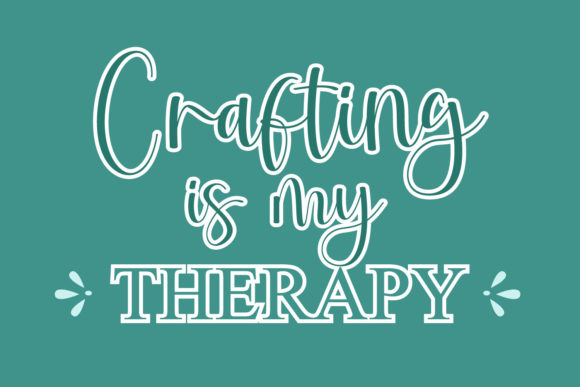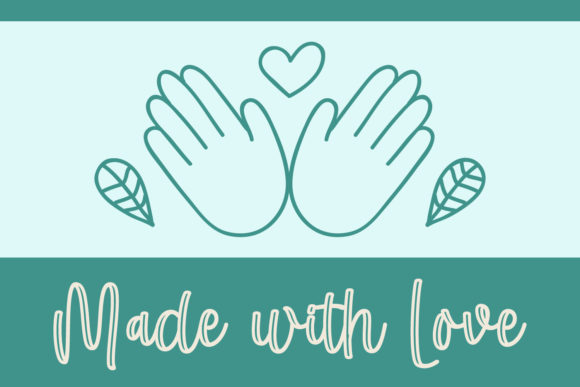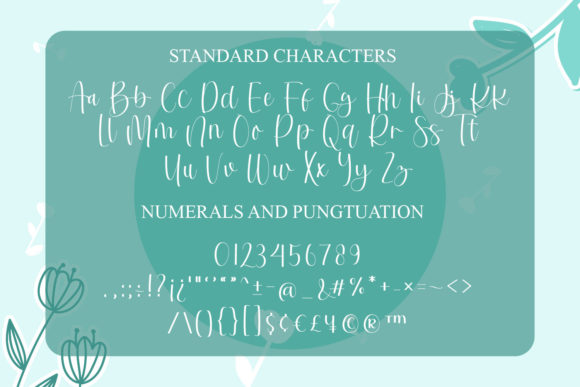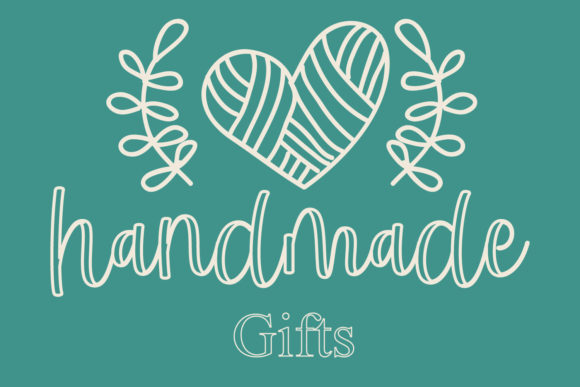
Craft Kurly Font
About Craft Kurly Font
Craft Kurly is a lovely and delicate script font that exudes elegance and class. This font was particularly crafted for those who need a beautiful and refreshing look to their designs.